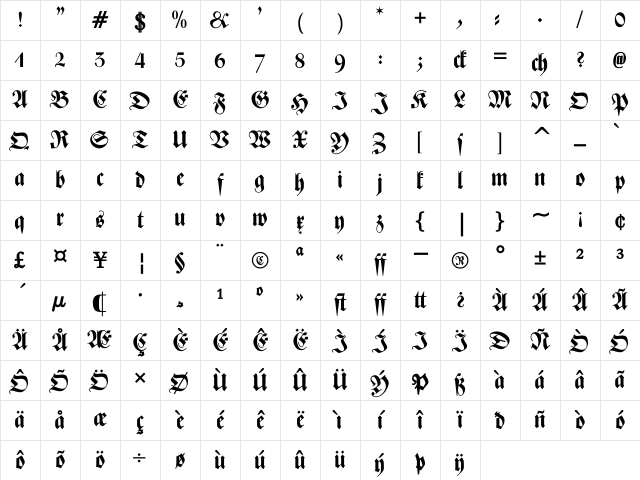
Complete Zentenar Fraktur OsF Bold glyph index. Displaying only characters natively supported by Zentenar Fraktur OsF Bold font.
Zentenar Fraktur OsF draws on the rich tradition of blackletter calligraphy, with dense, angular strokes that evoke medieval manuscripts and old-world craftsmanship. Its bold stroke weight gives it real presence on the page.
Font Pairing: Pair with a clean neutral sans-serif for body copy to let Zentenar Fraktur OsF's character lead without overwhelming the composition.
Pro Tip: Reserve Zentenar Fraktur OsF for display and logo use - pair it with a clean sans-serif for body copy to prevent the composition from feeling oppressive.